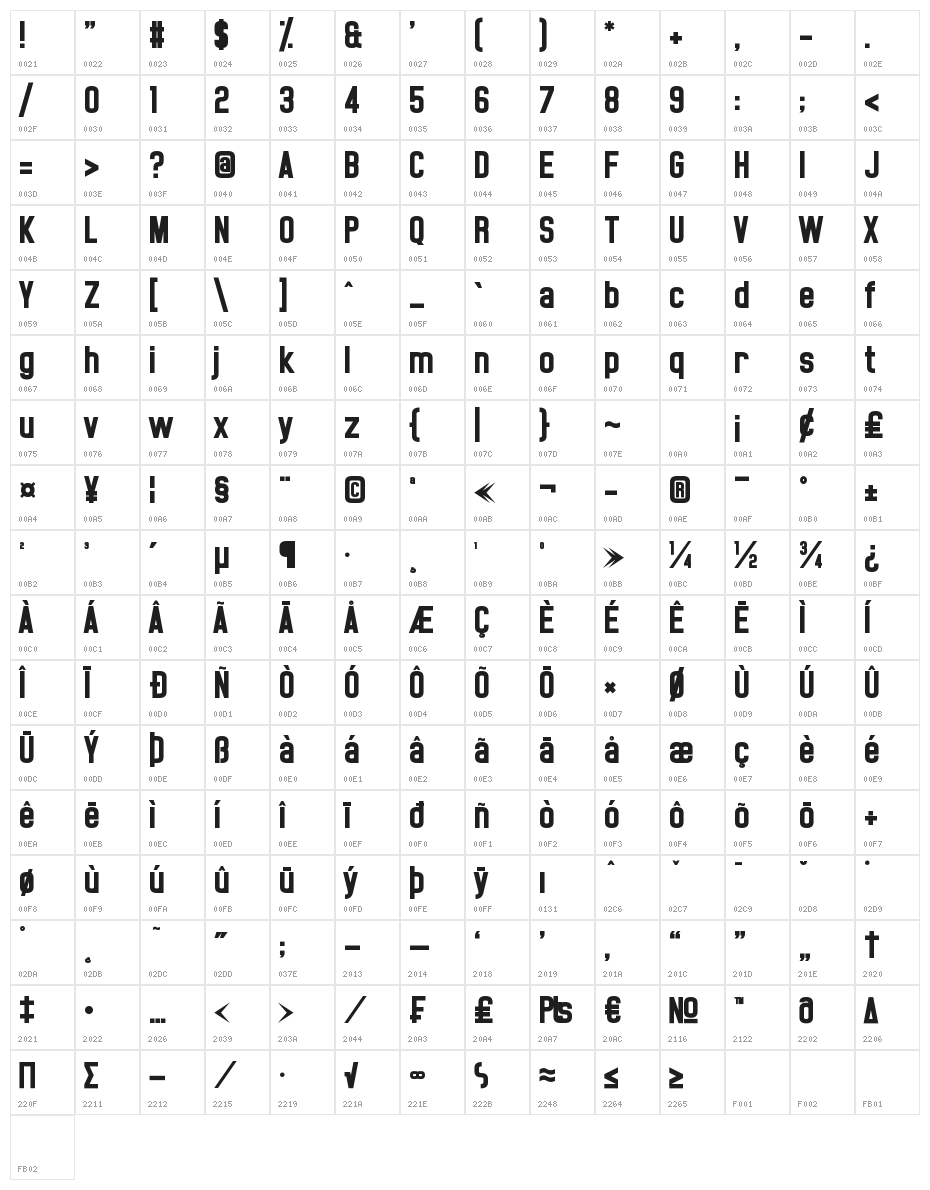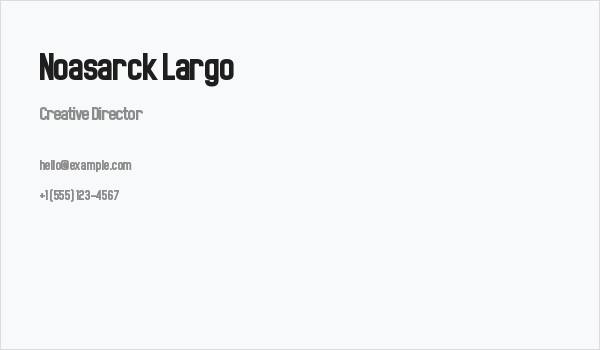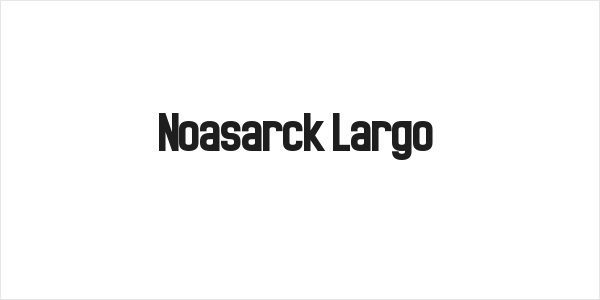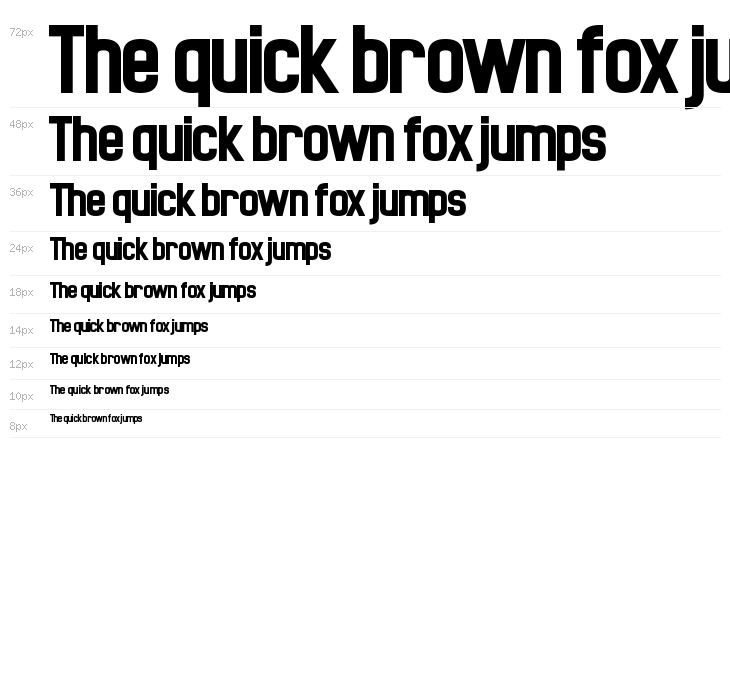
Noasarck Largo Font
Noasarck Largo Description
This font features bold, geometric letterforms with a strong presence. The uppercase and lowercase letters maintain a consistent weight, providing a uniform appearance. The characters are wide and have a slightly condensed feel, making them ideal for impactful headlines. The numbers and special characters follow the same bold style, ensuring coherence across all text elements. The font's clean lines and modern aesthetic make it versatile for various design applications.
Proposed ProjectsIdeal for branding, advertising, posters, and headlines where a strong visual impact is needed.